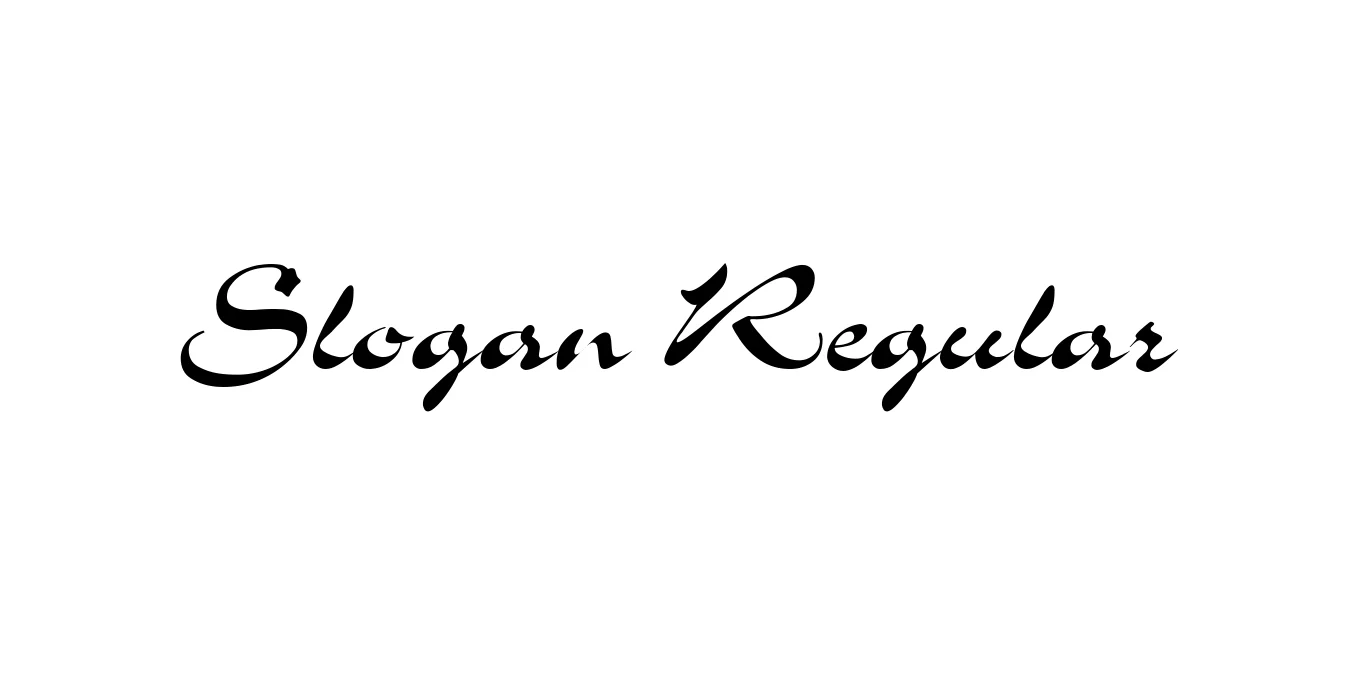
Slogan Regular
Designed by Aldo Novarese
Slogan Regular is a classic script typeface designed by the legendary Italian typographer Aldo Novarese in 1957 for the Nebiolo foundry. It features a fluid, brush-like motion that captures the aesthetic of mid-century advertising and hand-painted signage, characterized by its energetic strokes and rhythmic connections.
The font is highly regarded for its ability to convey a sense of elegance and movement simultaneously. Because of its retro appeal and strong personality, Slogan has remained a popular choice for designers looking to replicate the authentic feel of the 1950s and 60s in branding, poster design, and editorial layouts.
Slogan Regular Best Uses
Ideal for vintage-style logos and product packaging.
Excellent for eye-catching headlines in posters and social media graphics.
Adds a personal, sophisticated touch to formal event stationery.